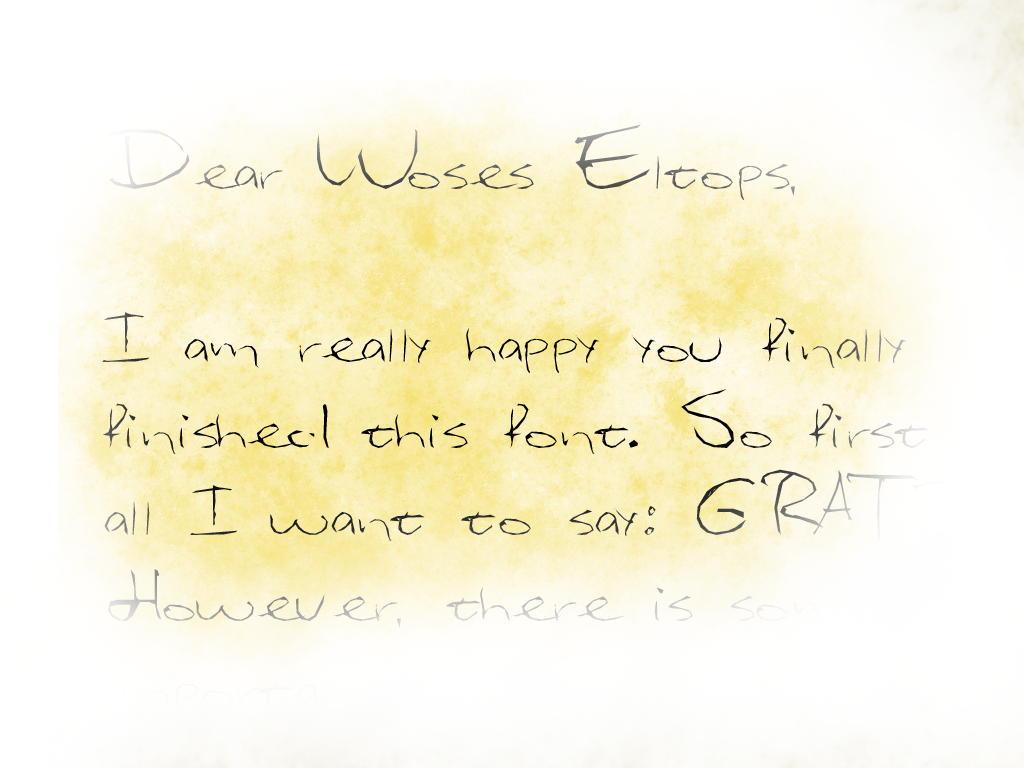
This is my handwriting. Enjoy it.Related content
Amazing font! Altough your presentation isn't very well...nevertheless, great job!
Very cool!
I've always wished I had a font with my handwriting-maybe we could do an art trade?
Ah, never mind. It just took me a while to install the unzipping thingamagiggie. It's nice, but only works on size 20+. Too bad.
Yeah you're right. I gotta change that.